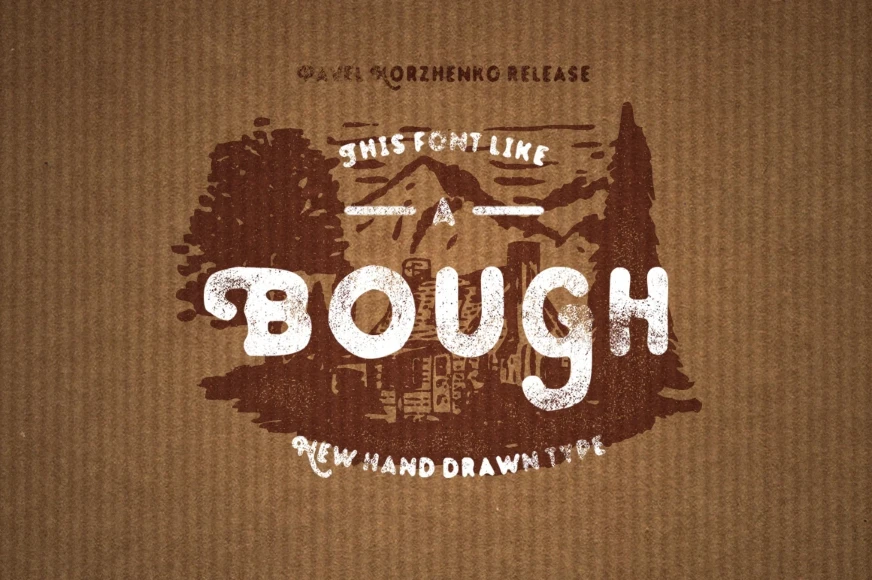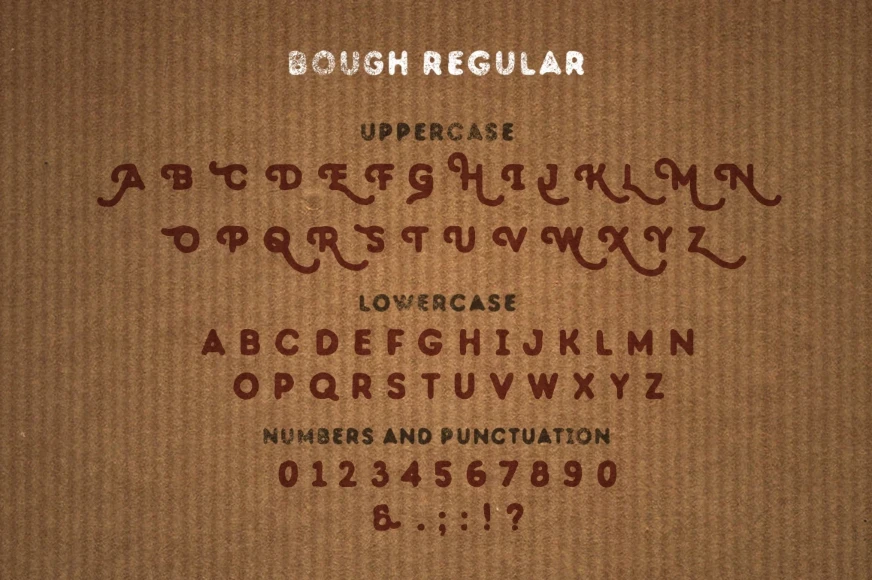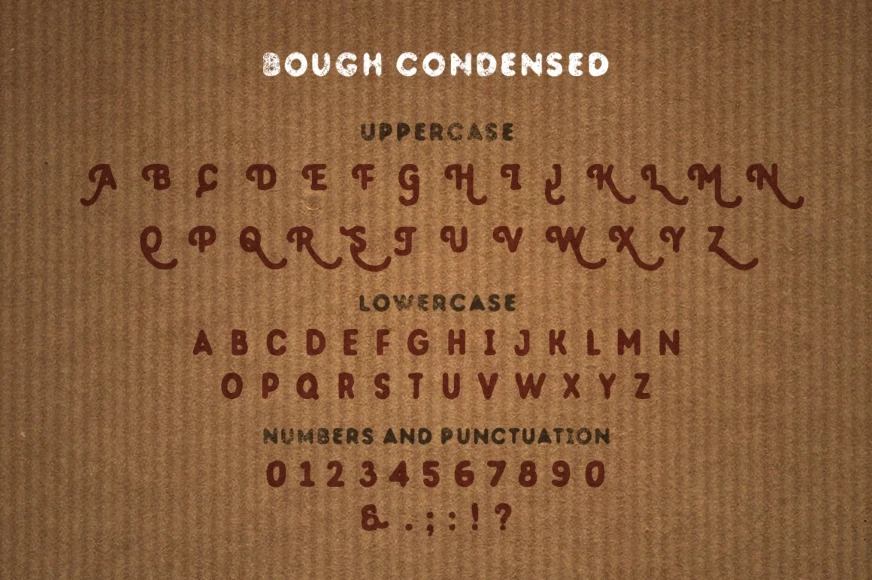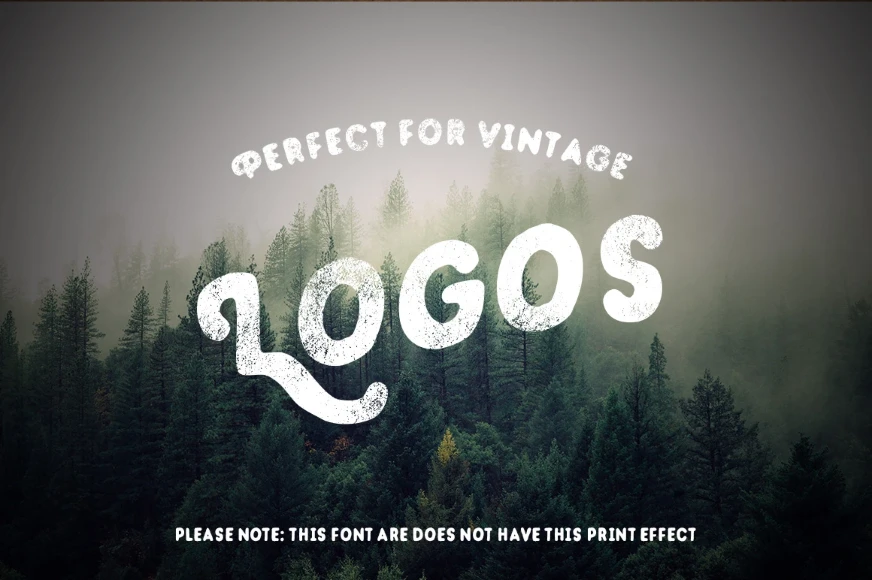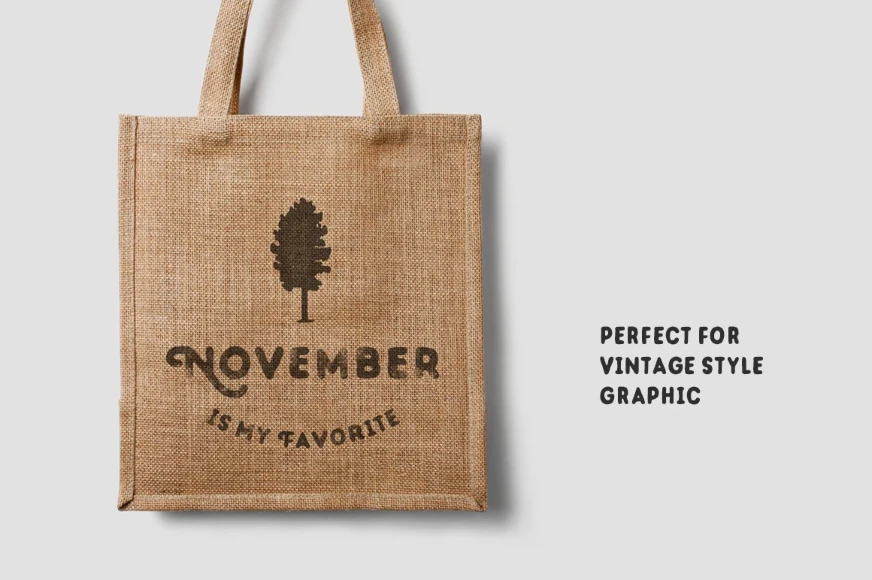
Bough is a vintage-style font designed for a classic, retro look. Perfect for logos, prints, cards, web design, and posters. Brings an old-school feel to any project aiming for a nostalgic vibe. A simple and affordable choice for creating timeless, vintage-inspired designs.
Bough Condensed Regular
Bough Regular